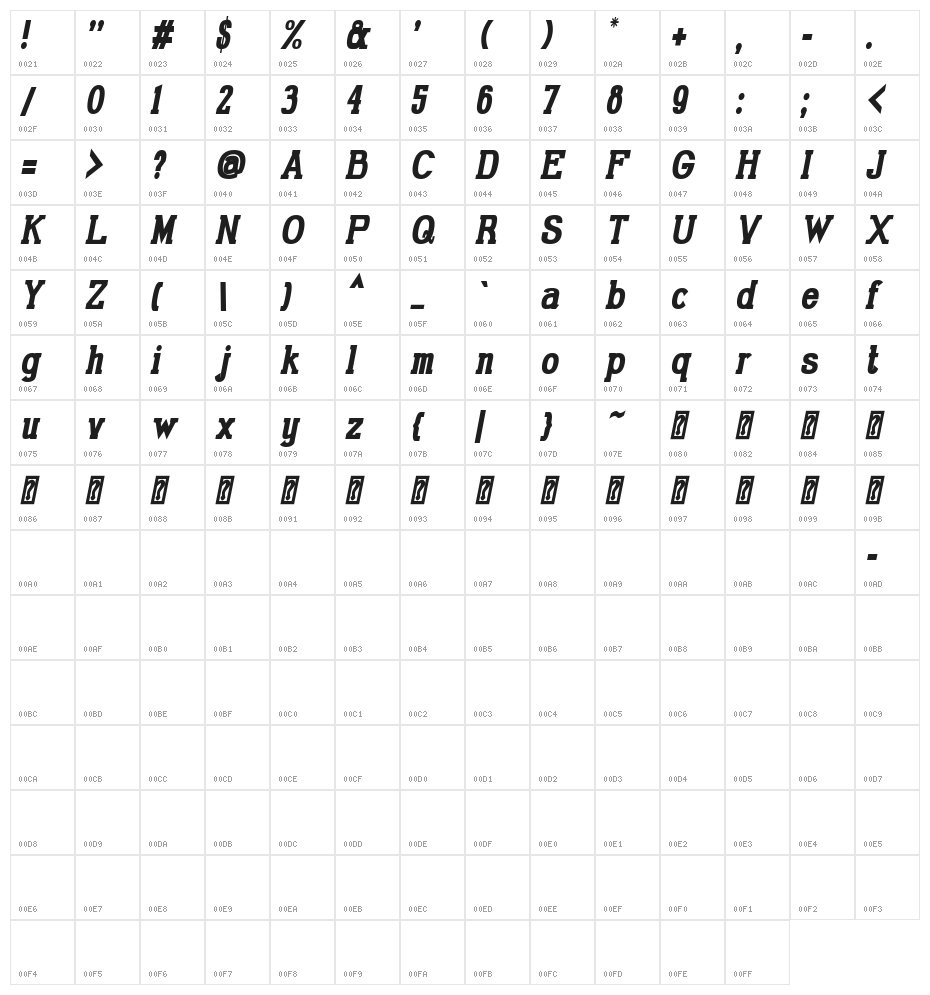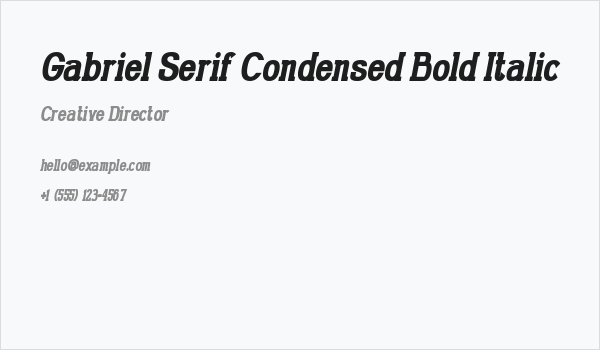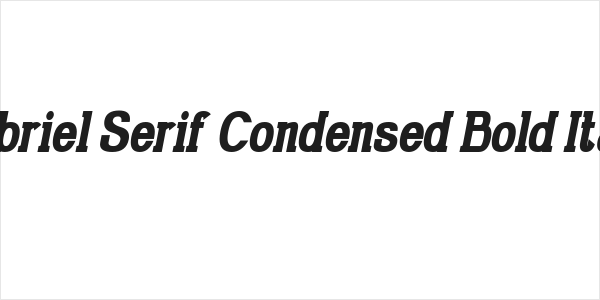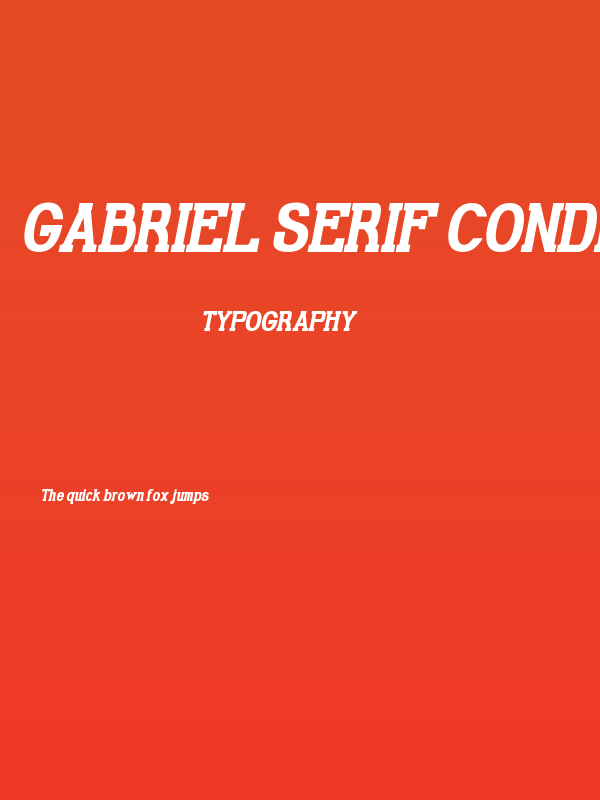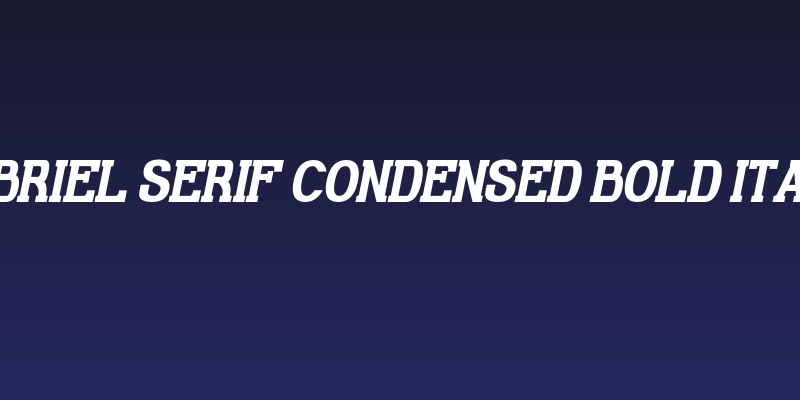
Gabriel Serif Condensed Bold Italic Font
Gabriel Serif Condensed Bold Italic Description
This font exhibits a bold and dynamic presence with its condensed serif style, offering a strong and assertive look. The italicized form adds a sense of motion and elegance, making it suitable for impactful statements. The uppercase and lowercase letters maintain a consistent weight, providing a cohesive appearance. The numerals and special characters are designed to complement the overall aesthetic, ensuring readability and style. The font's condensed nature allows for efficient use of space, making it ideal for headlines and titles where space is limited but impact is essential.
| Proposed Projects | Ideal for magazine headlines, branding projects, poster designs, and any creative work requiring a bold statement. |